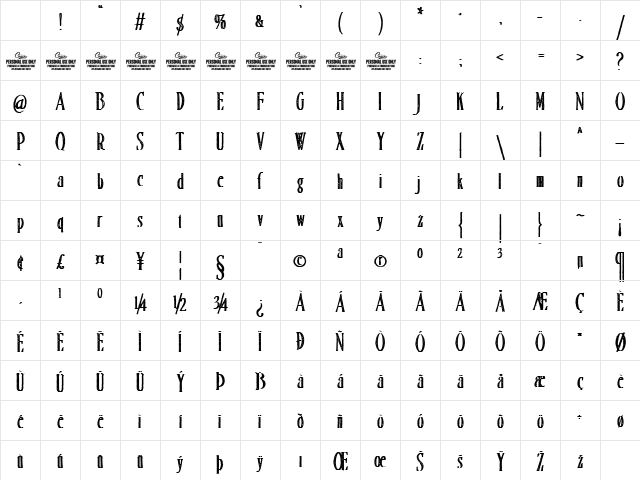
Complete Merchande Print Serif Rough glyph index. Displaying only characters natively supported by Merchande Print Serif Rough font.
Merchande Print Serif embraces imperfection - its rough, textured character adds raw authenticity to designs that want to feel lived-in and unconventional.
Pro Tip: Use Merchande Print Serif at larger sizes where the texture and irregularity of each letterform can be clearly seen - it loses its character at small sizes.